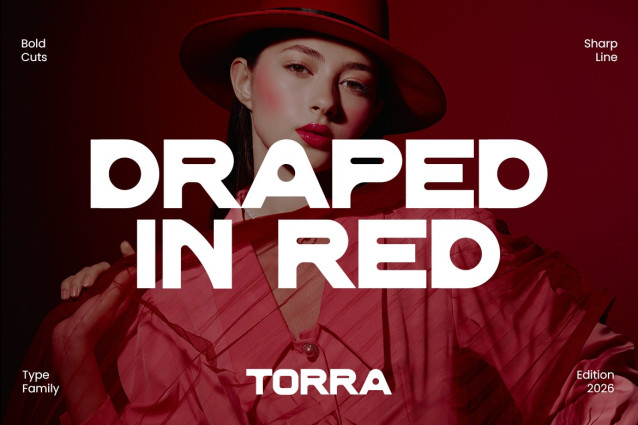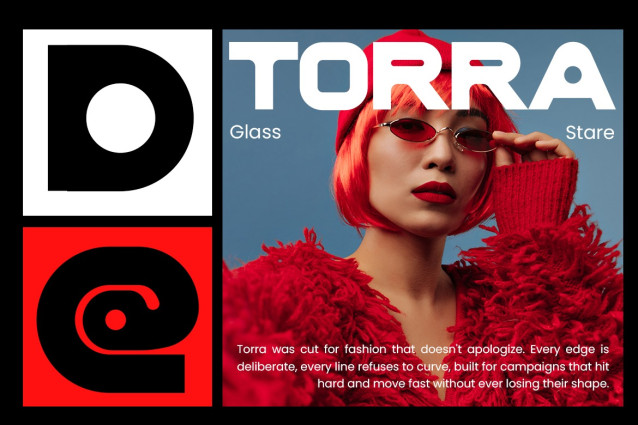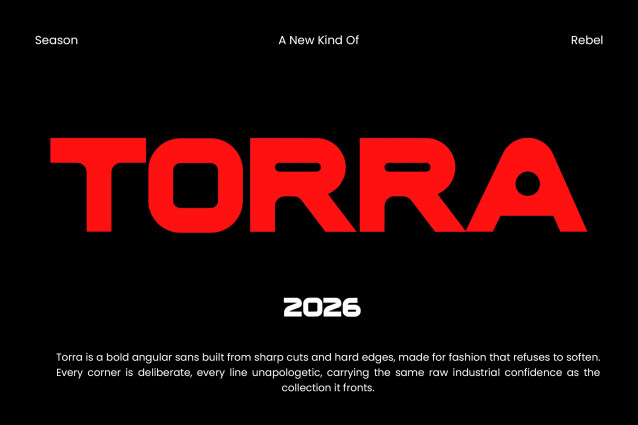
Instagram Font Torra delivers a sharp, futuristic look with bold geometric forms, compact proportions, and a strong digital attitude. First, its heavy letterforms create instant visual impact, while the rounded corners and structured shapes keep the typography clean and modern. Meanwhile, the strong contrast makes Torra perfect for bold headlines, campaign titles, logos, and editorial statements. Moreover, its energetic character fits perfectly with fashion, music, technology, gaming, and contemporary visual identities. As a result, Torra can turn even a simple word into a powerful graphic element.
Torra is built for designs that need confidence, attitude, and a distinctly modern edge. For example, it works beautifully for magazine covers, fashion campaigns, album artwork, posters, social media graphics, branding, event promotions, sports visuals, and digital advertising. Furthermore, its bold structure pairs especially well with photography, gradients, high-contrast layouts, and experimental compositions. Because of this, designers can create visuals that feel sharp, youthful, and highly memorable. Likewise, Torra works particularly well for projects inspired by street culture, futuristic aesthetics, and digital media.